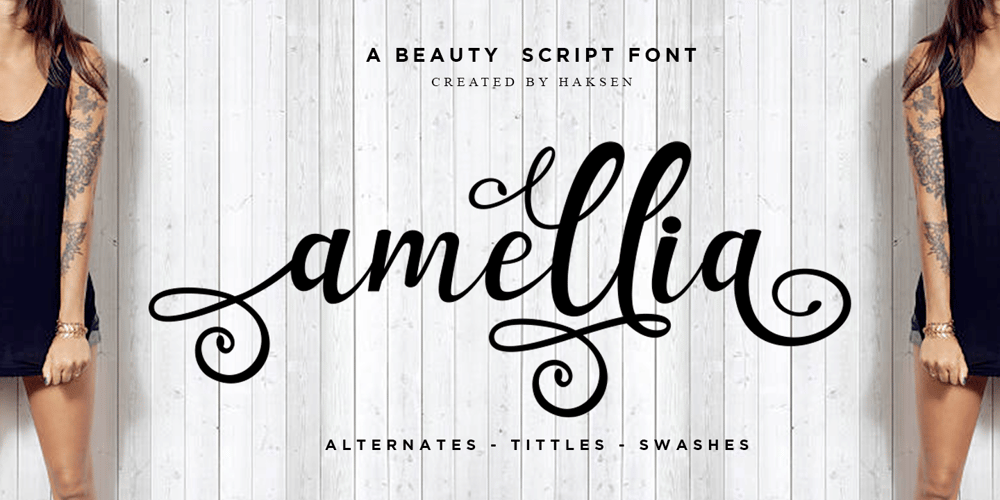
Amellia Font Family was designed by Sarwo Edhi Prayitno and published by Haksen. Amellia contains 1 styles and family package options. Hello Font lovers,I just released my new font with the name “Amellia””Amellia” is one of beauty script font with many alternate fonts.WHAT YOU GET?- Amellia otf with many alternates.As You can see in the preview. You will make many of version in every letters.Thanks for visited.Happy Designs